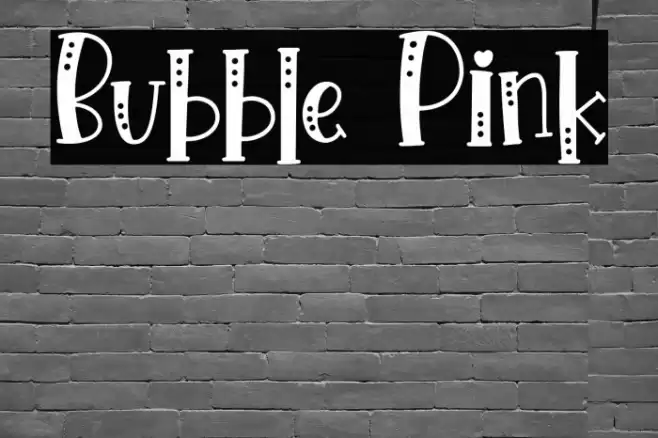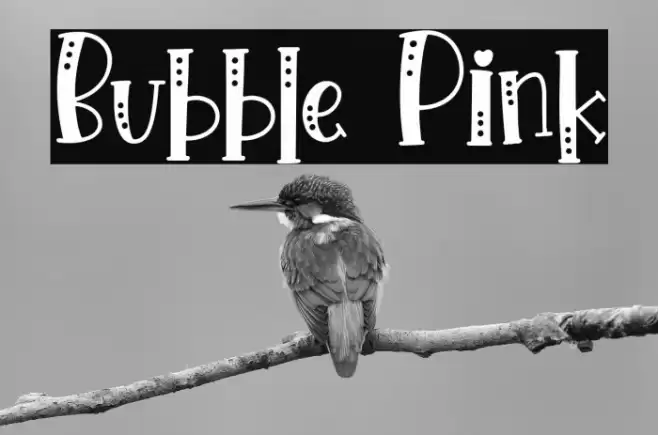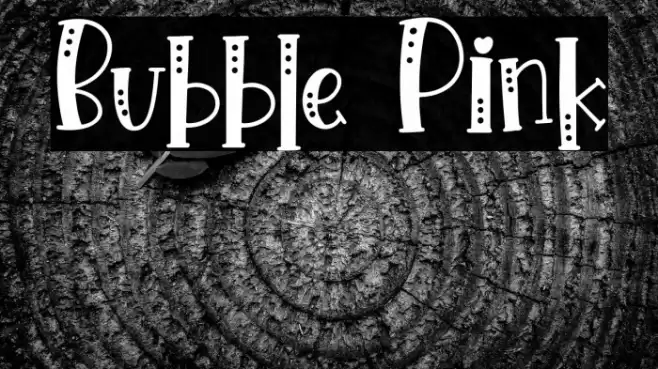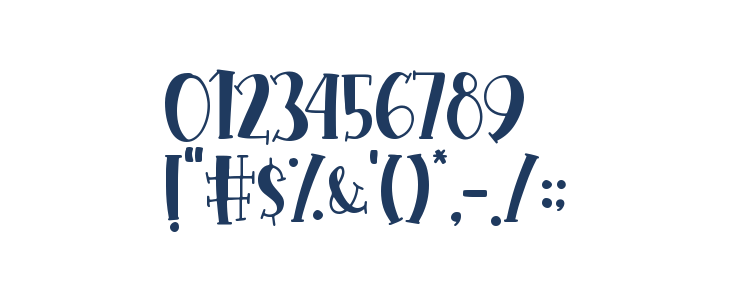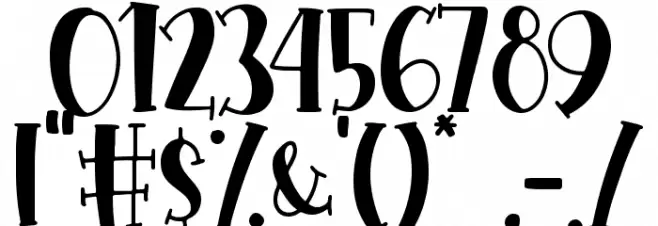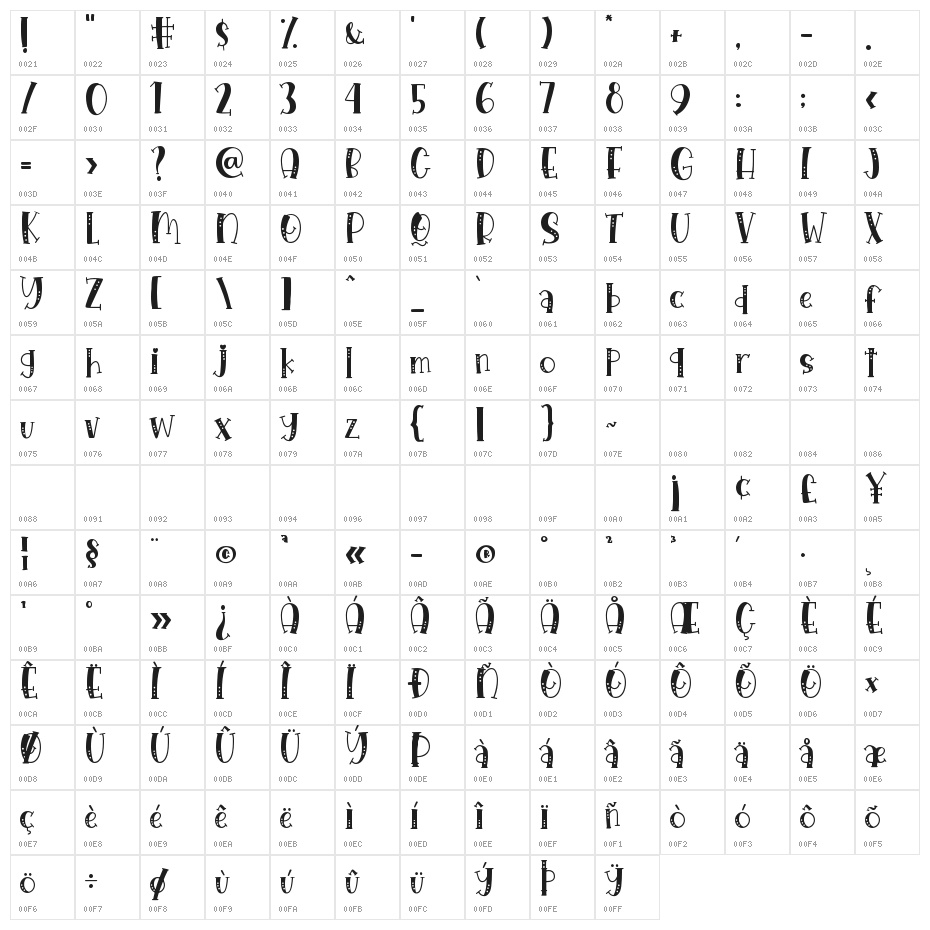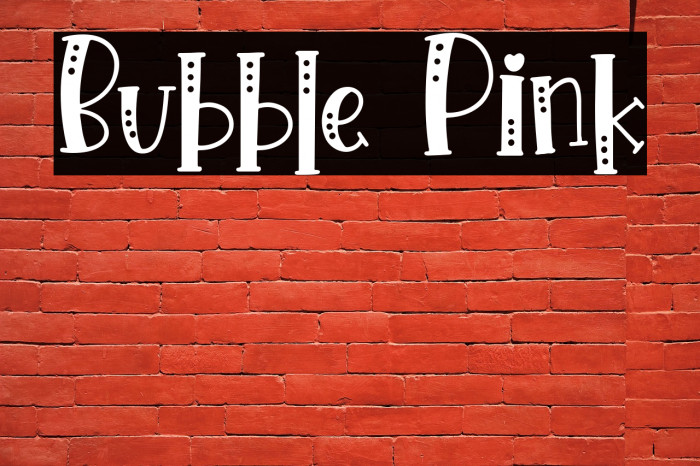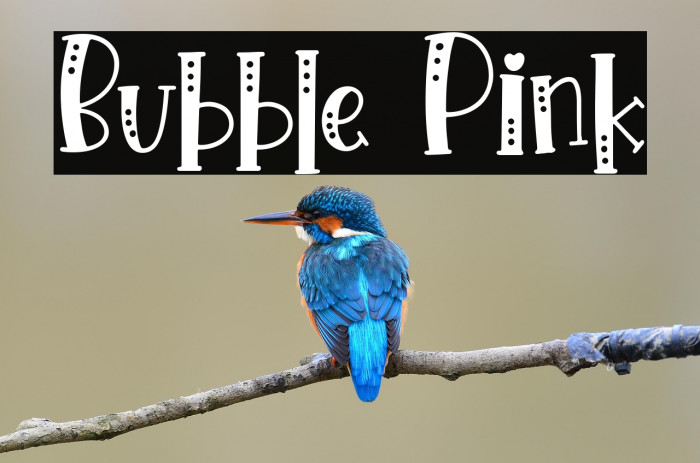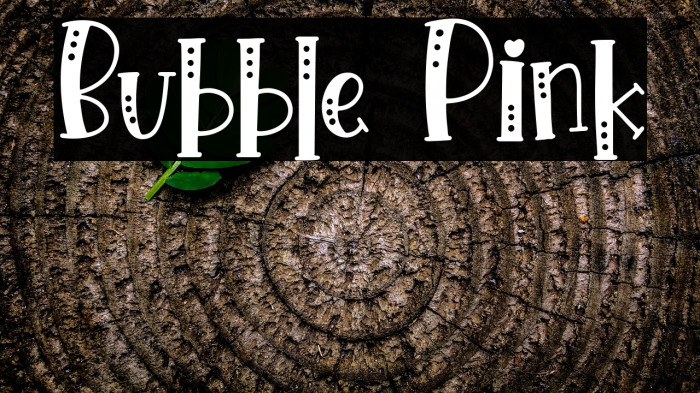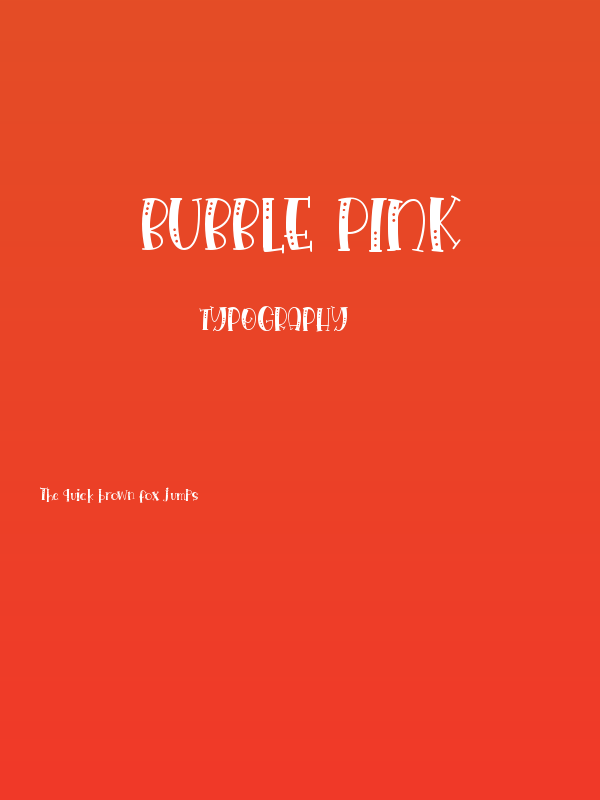
Bubble Pink Font
Bubble Pink Description
This playful and whimsical font features a unique design with a bubbly and cheerful appearance. The letters are characterized by their bold, rounded forms and decorative elements, such as dots and heart shapes, that add a touch of fun and creativity. The uppercase and lowercase letters maintain a consistent style, with exaggerated curves and playful serifs that give the font a lively and dynamic feel. Numbers and special characters are equally expressive, maintaining the overall theme of joy and creativity. This font is perfect for projects that require a lighthearted and engaging touch.
A playful and whimsical font with bold, rounded forms and decorative elements from Regular fonts.
- Proposed Projects: Ideal for children's books, party invitations, playful branding, and creative posters.
- Overall Style: Playful, Whimsical